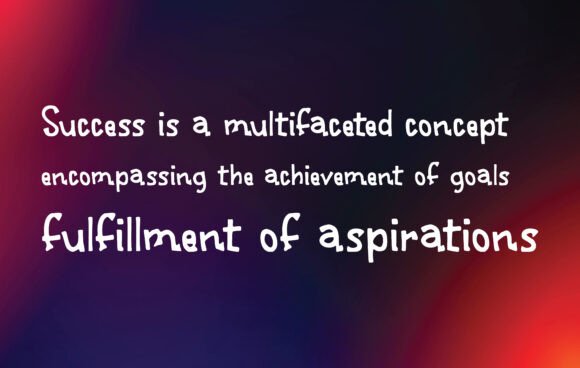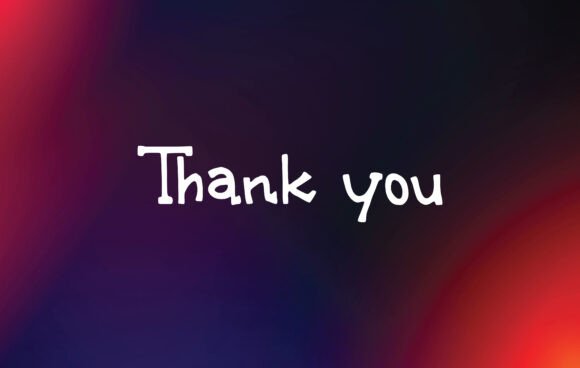
Gecko Font: Elevate Your Designs with a Lovely Handwritten Style
Are you tired of using the same old fonts in your designs? Look no further than Gecko Font, a beautiful handwritten font that’s sure to take your creative ideas to the next level. With its unique and charming style, Gecko is the perfect choice for designers and crafters looking to add a personal touch to their work.
The Beauty of Gecko Font
Gecko Font is a lovely and beautiful handwritten font that’s designed to make your designs stand out. Its elegant and flowing lines give it a sophisticated feel, while its playful and whimsical touches make it fun and engaging. Whether you’re creating a logo, branding materials, or quotes, Gecko Font is the perfect choice.
What Makes Gecko Font So Special?
So, what sets Gecko Font apart from other fonts out there? Here are just a few reasons why it’s a cut above the rest:
- Unique and Handwritten Style: Gecko Font is a carefully crafted handwritten font that’s designed to look like it was written with a pen. Its unique style gives it a personal and human touch that’s hard to find with other fonts.
- Highly Versatile: Whether you’re creating a logo, branding materials, or quotes, Gecko Font is highly versatile and can be used in a variety of contexts.
- Elegant and Playful: Gecko Font strikes the perfect balance between elegance and playfulness, making it perfect for designs that need to be both sophisticated and fun.
Uses for Gecko Font
So, what can you use Gecko Font for? The possibilities are endless! Here are a few ideas to get you started:
- Logos and Branding: Gecko Font is perfect for creating eye-catching logos and branding materials that will help your business stand out.
- Quotes and Posters: Add a personal touch to your quotes and posters with Gecko Font, which is designed to make your text look like it was written with a pen.
- Stationery and Invitations: Use Gecko Font to add a touch of elegance and whimsy to your stationery and invitations.
Tips for Using Gecko Font
Here are a few tips for getting the most out of Gecko Font:
- Experiment with Different Sizes: Gecko Font looks great in a variety of sizes, so don’t be afraid to experiment and find the perfect size for your design.
- Pair it with Other Fonts: Gecko Font pairs well with a variety of other fonts, so try combining it with other fonts to create a unique and interesting look.
- Use it to Add a Personal Touch: Gecko Font is designed to look like it was written with a pen, so use it to add a personal touch to your designs.